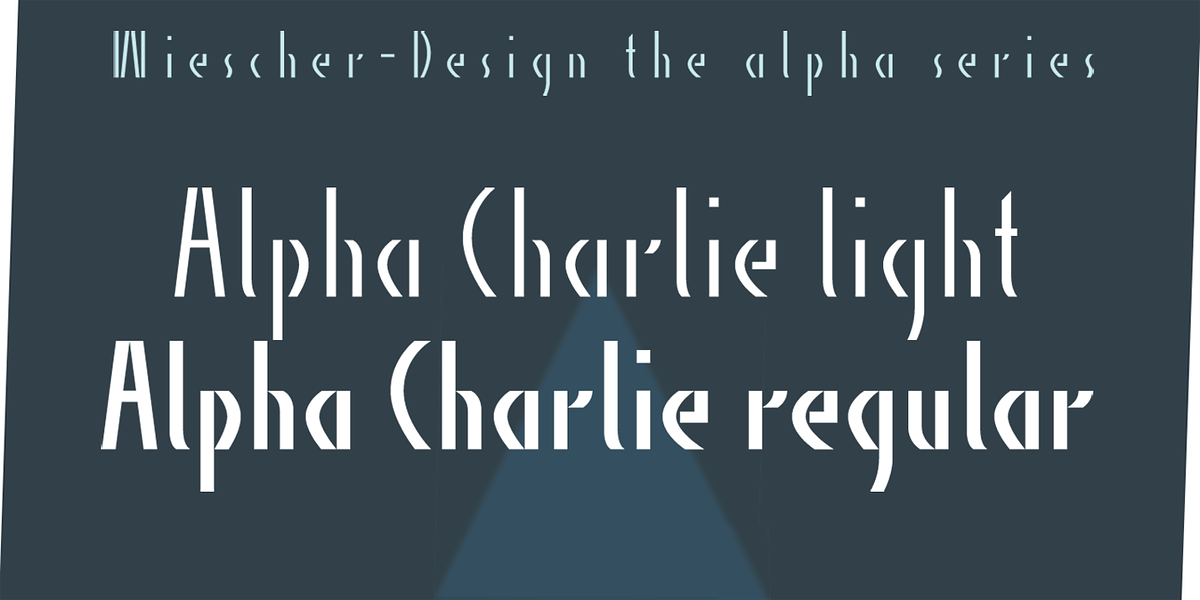
Alpha Charlie
AlphaCharlie is an experimental geometric sans-serif font designed by Gert Wiescher. Its stencil-inspired design gives it a unique and bold appearance.